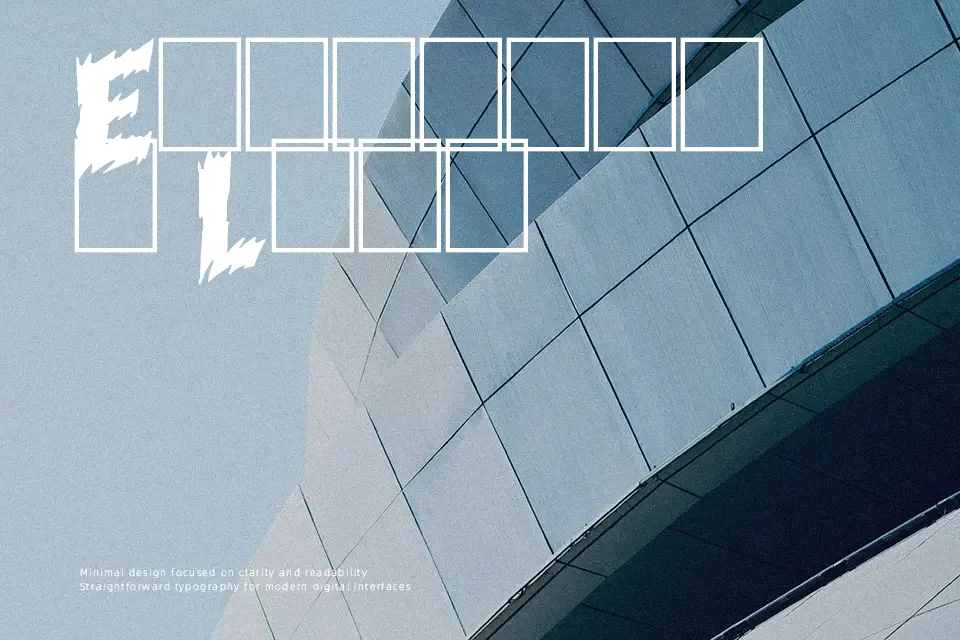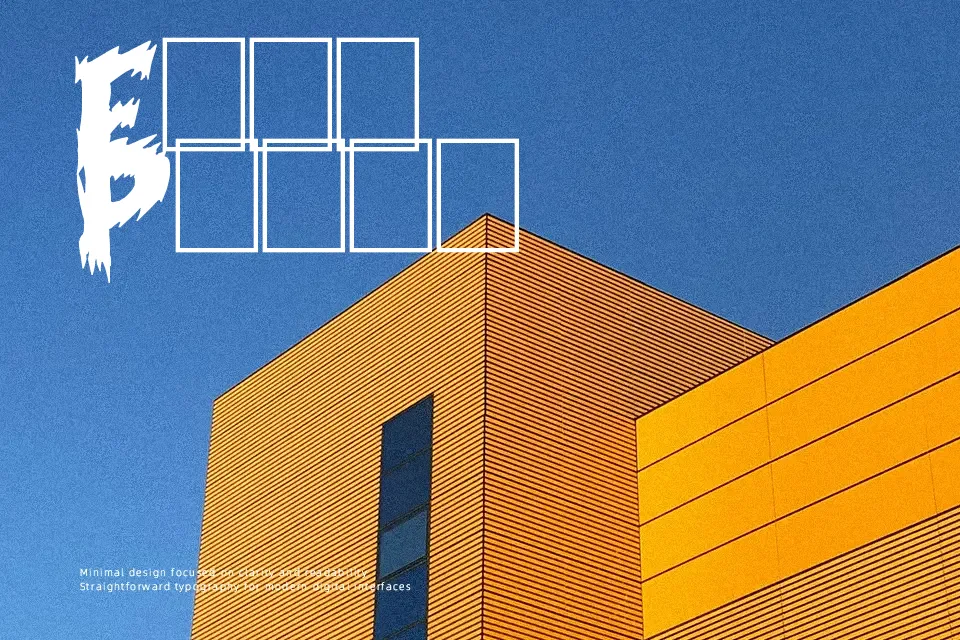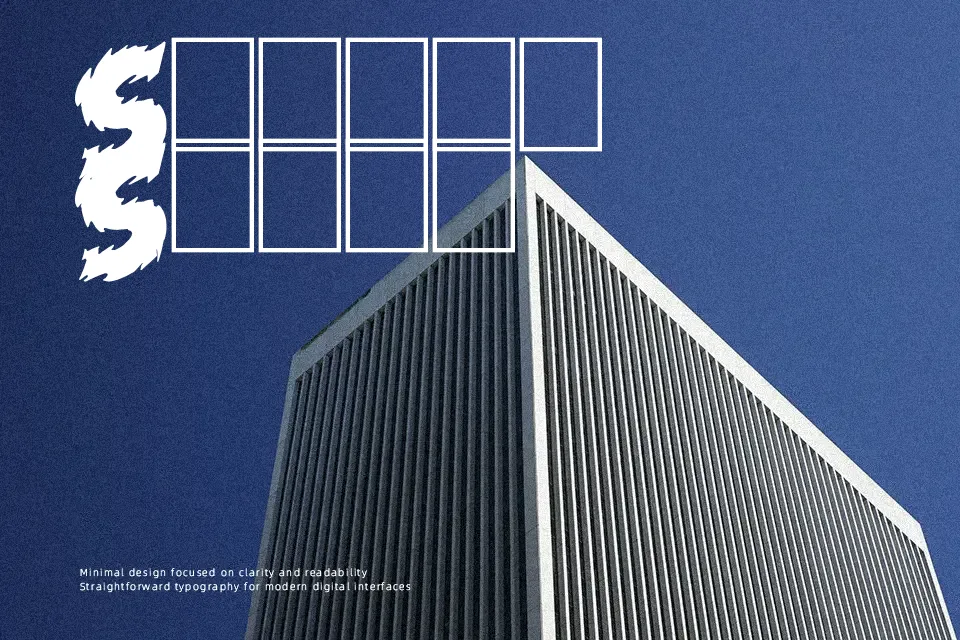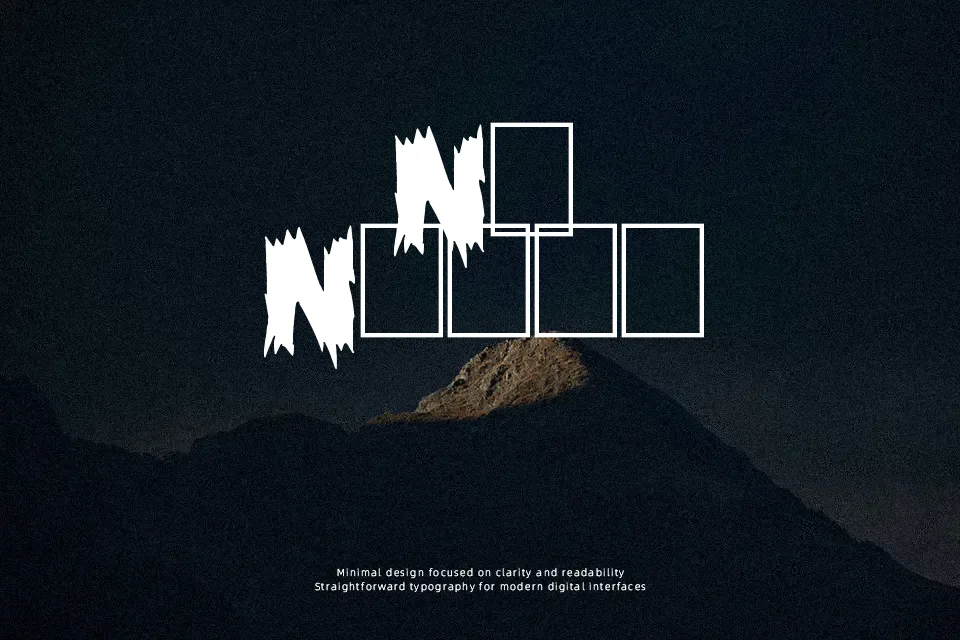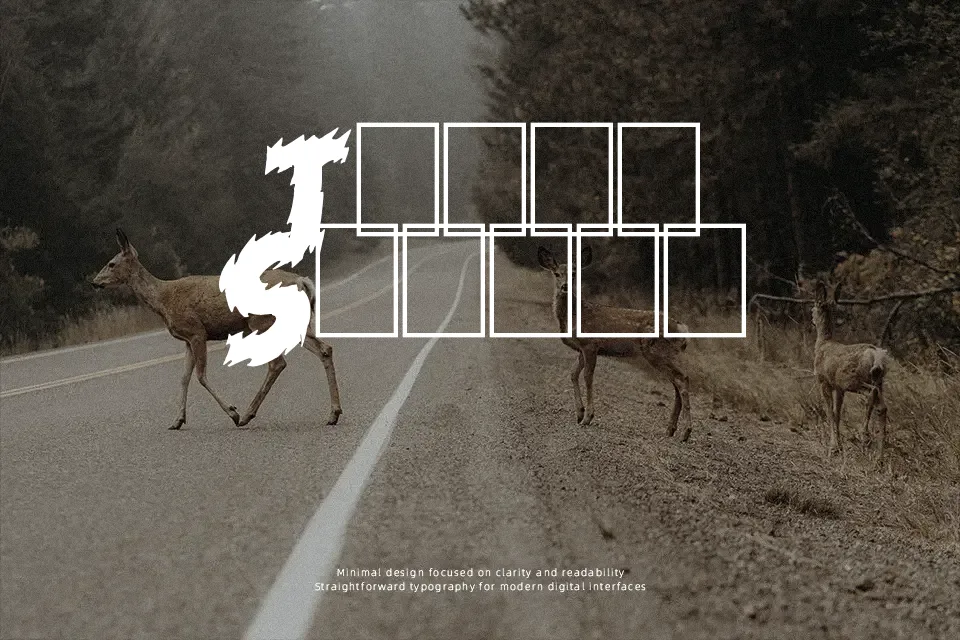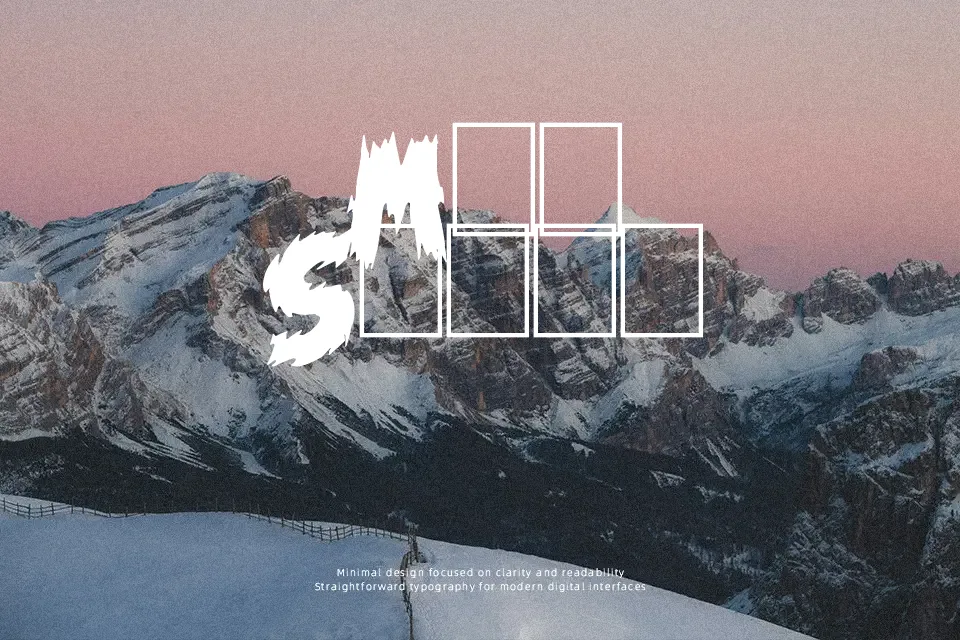
Tales of Scare Black Font
Designed by imagex
Tales of Scare Black Font delivers a jagged, distressed aesthetic characterized by razor-sharp edges and erratic, slashed contours reminiscent of torn parchment or claw marks. The heavy, solid black letterforms create high visual contrast, while inconsistent character widths and uneven spacing give headline text a chaotic, ominous cadence. Because of its intense decorative complexity and coarse stroke junctions, the typeface excels across prominent poster titles, game covers, and themed merchandise packaging. However, the abrasive shapes degrade rapidly at smaller sizes, making the font unsuitable for continuous body copy or multi-line paragraphs. The rugged silhouette delivers exceptional impact when isolated as a dominant graphic focal point.
– Halloween party flyer headlines
– horror video game title screens
– distressed apparel graphics
– thriller book cover titles
– long paragraph text
– small interface labels
– corporate annual reports
– technical manuals
Perfect for branding, gaming, and halloween, with a dark and decorative style.